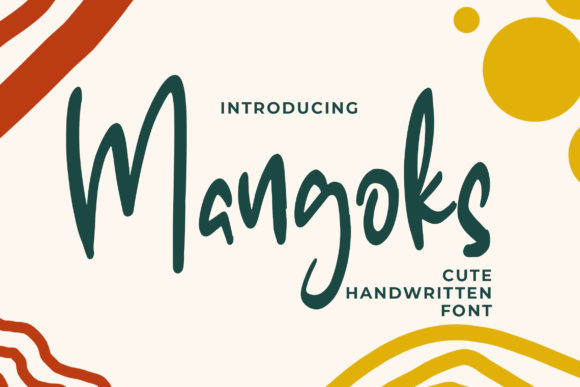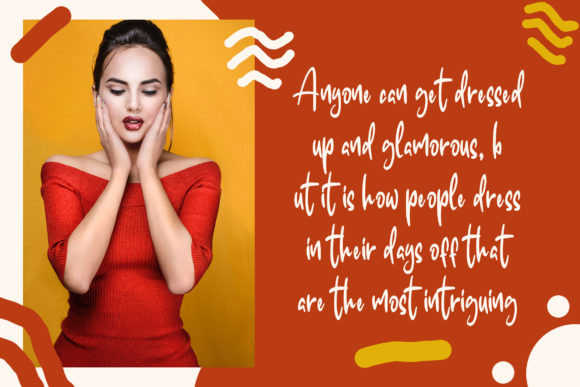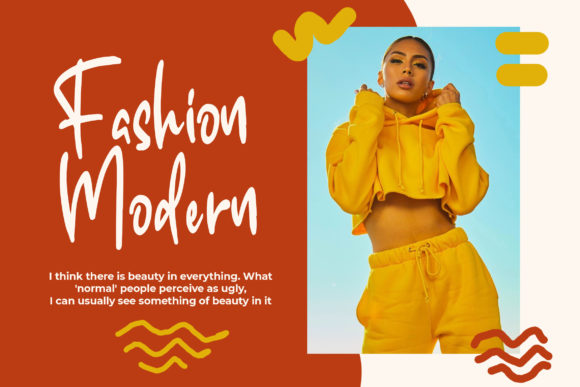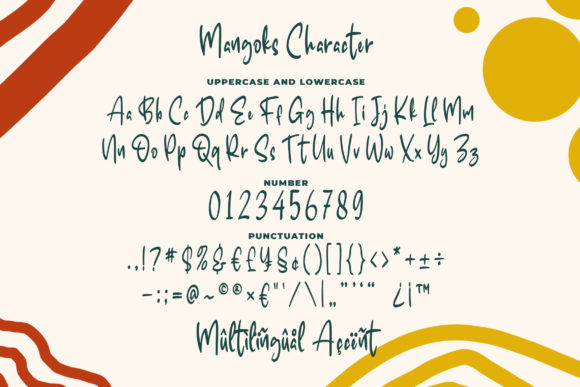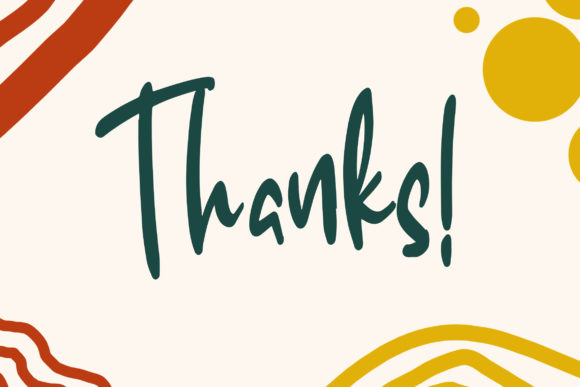
Mangoks Font
About Mangoks Font
Mangoks is a stunning script font that will add a personal touch to any design project. Get inspired by its unique charm!